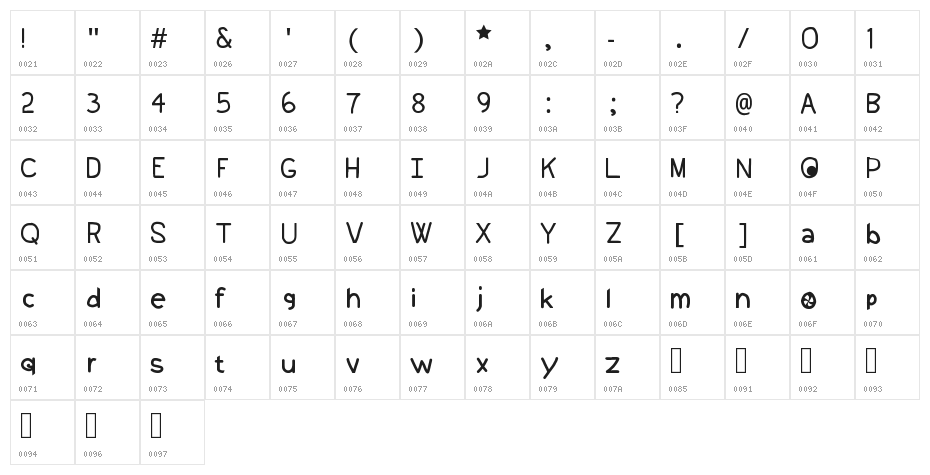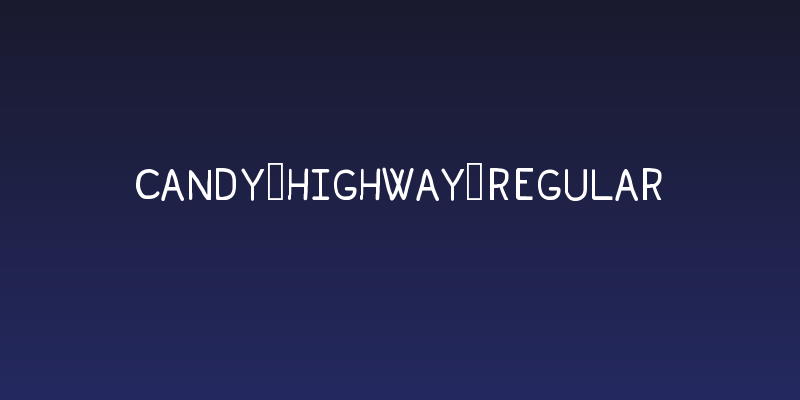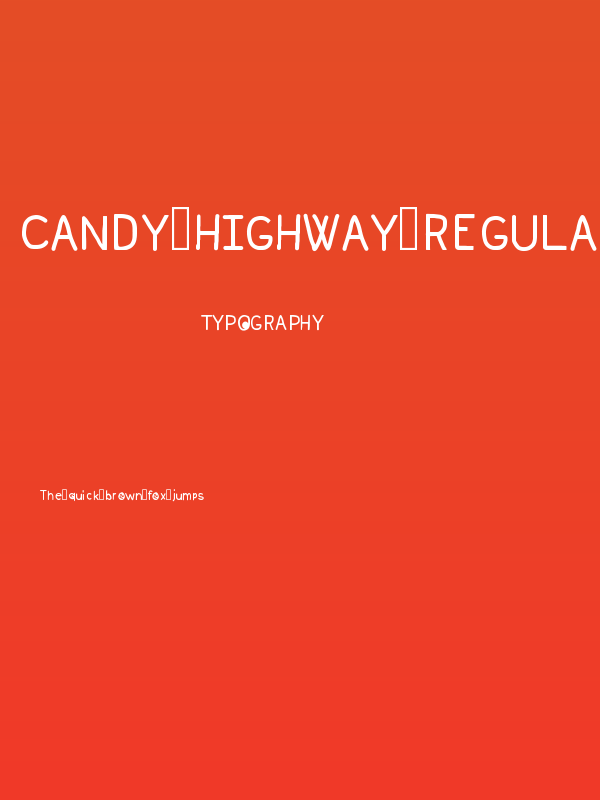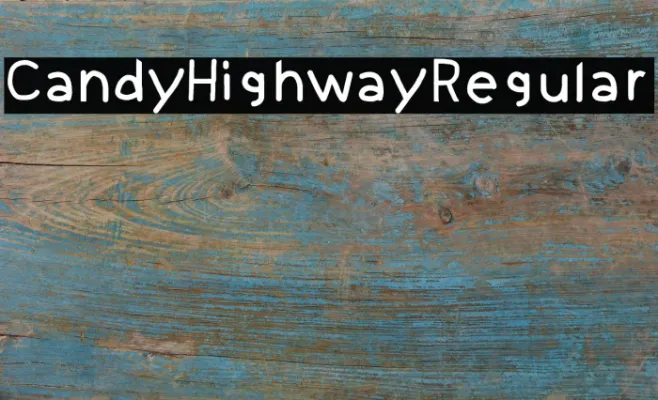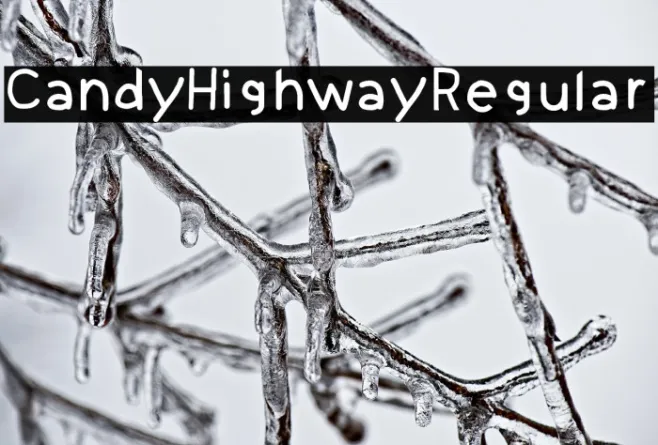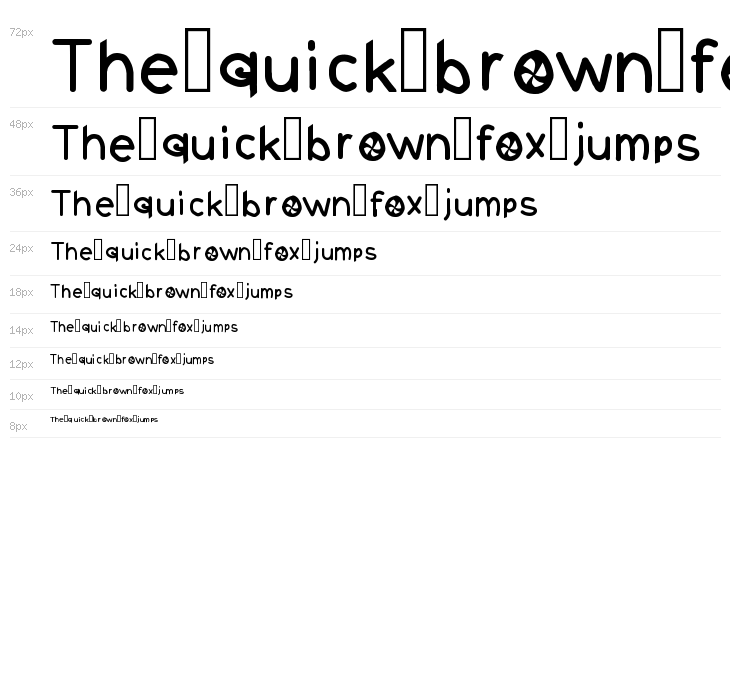
Candy Highway Regular Font
Candy Highway Regular Description
This playful and whimsical font features rounded edges and a hand-drawn aesthetic, giving it a friendly and approachable feel. The characters are slightly irregular, adding to its charm and uniqueness. The uppercase and lowercase letters maintain a consistent style, with a slight tilt that adds a dynamic quality. Numbers and special characters are designed to match the overall playful theme, making it suitable for creative and informal projects. The font's design is reminiscent of handwritten text, offering a personal touch to any design.
| Proposed Projects | Ideal for children's books, playful branding, greeting cards, and creative posters. |